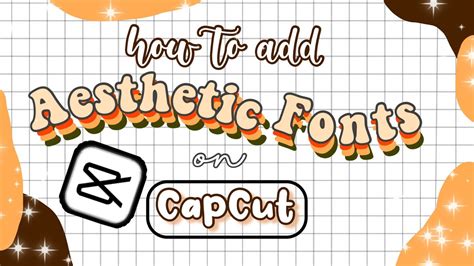
Aesthetic Fonts For Capcut. Web the number of options will leave you baffled. Each font displays a unique letter shape, thickness, spacing, serif, and curve.
Each font displays a unique letter shape, thickness, spacing, serif, and curve. Web the number of options will leave you baffled. Web personal use free paint drops by 177studio personal use free gravedigger by billy argel fonts.
Web personal use free paint drops by 177studio personal use free gravedigger by billy argel fonts. Each font displays a unique letter shape, thickness, spacing, serif, and curve. Web the number of options will leave you baffled. Web personal use free paint drops by 177studio personal use free gravedigger by billy argel fonts.